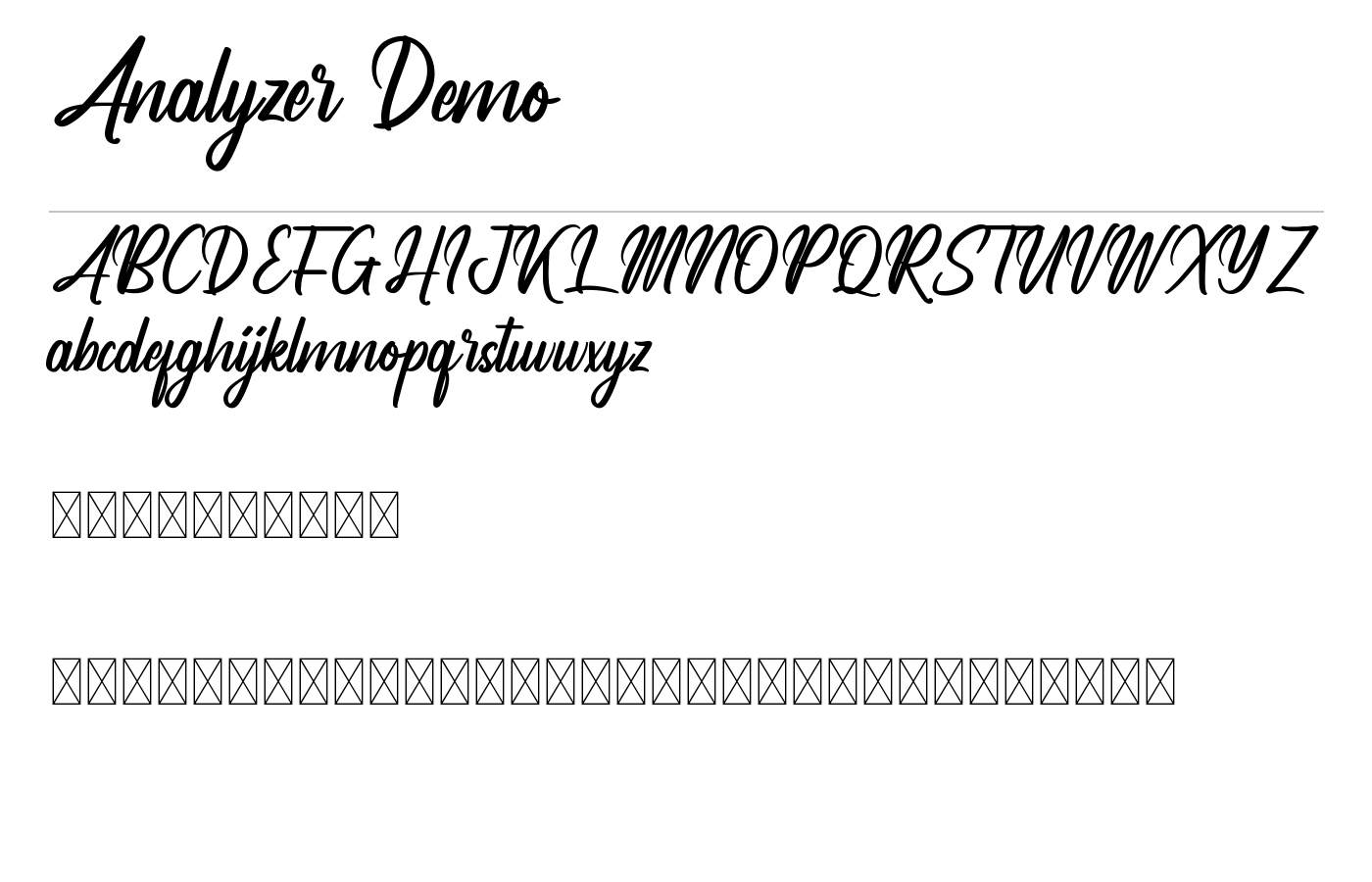
Analyzer Demo is a lively and elegant script font featuring smooth, flowing strokes with a moderate contrast that gives it a refined yet approachable feel. Its upright, connected letterforms and clear legibility make it perfect for stylish branding, invitations, and headlines that want to convey charm and sophistication without losing readability. This font works well in designs looking to add a personal, handwritten touch with a polished and modern appearance.
Analyzer Demo Font
About Analyzer Demo Font